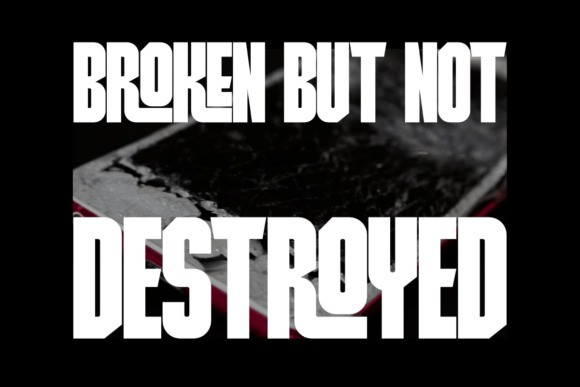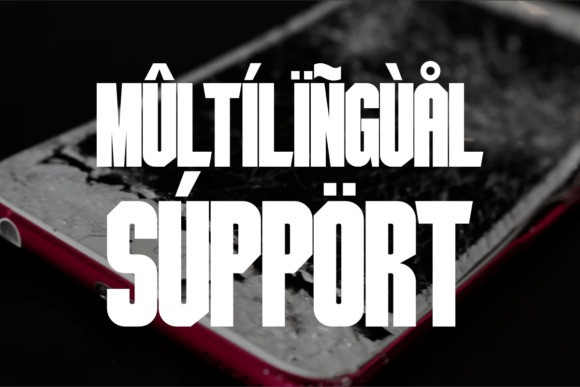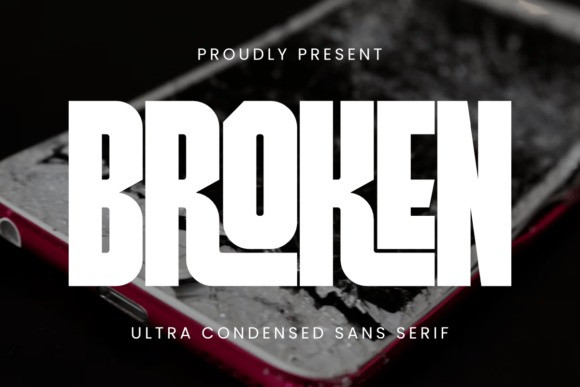
Broken Sans Font
Broken Sans Font is an ultra-condensed sans-serif font with a powerful and energetic style. With its tall, bold letterforms and modern structure, this font is perfect for projects that need maximum impact, such as posters, sports designs, logos, and bold branding.
Whether for apparel design, editorial layouts, or advertising, Mini Bold delivers strength and clarity in every use. A must-have font for designers who love high-impact typography.